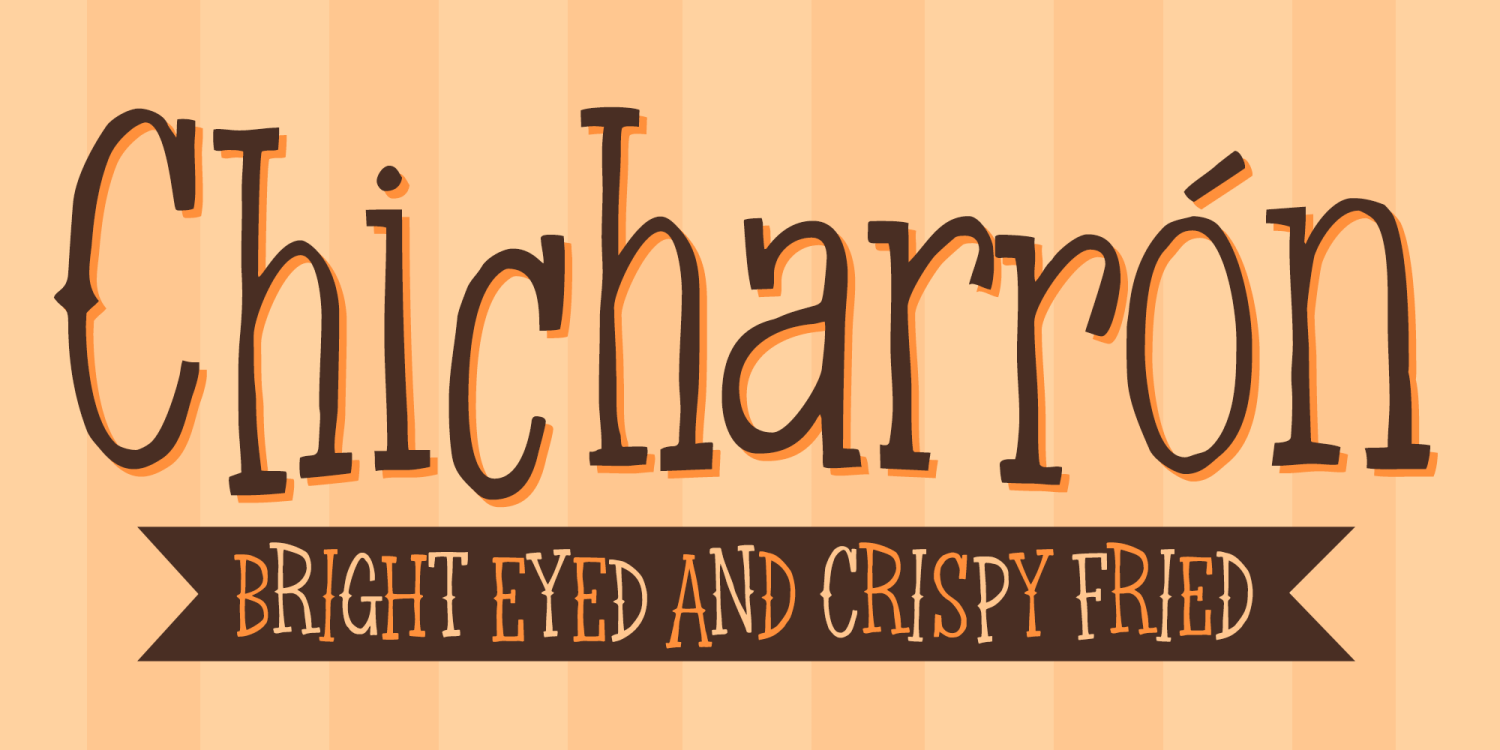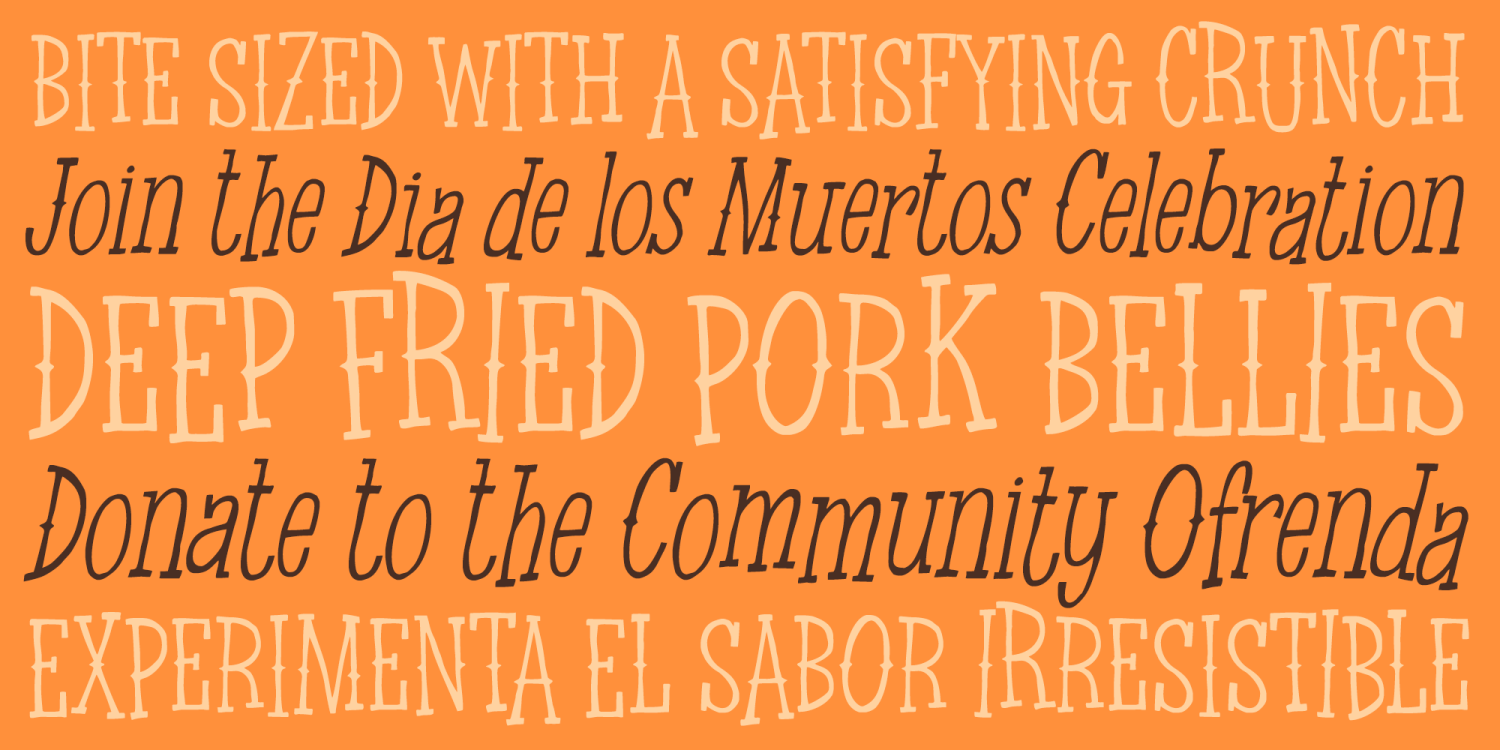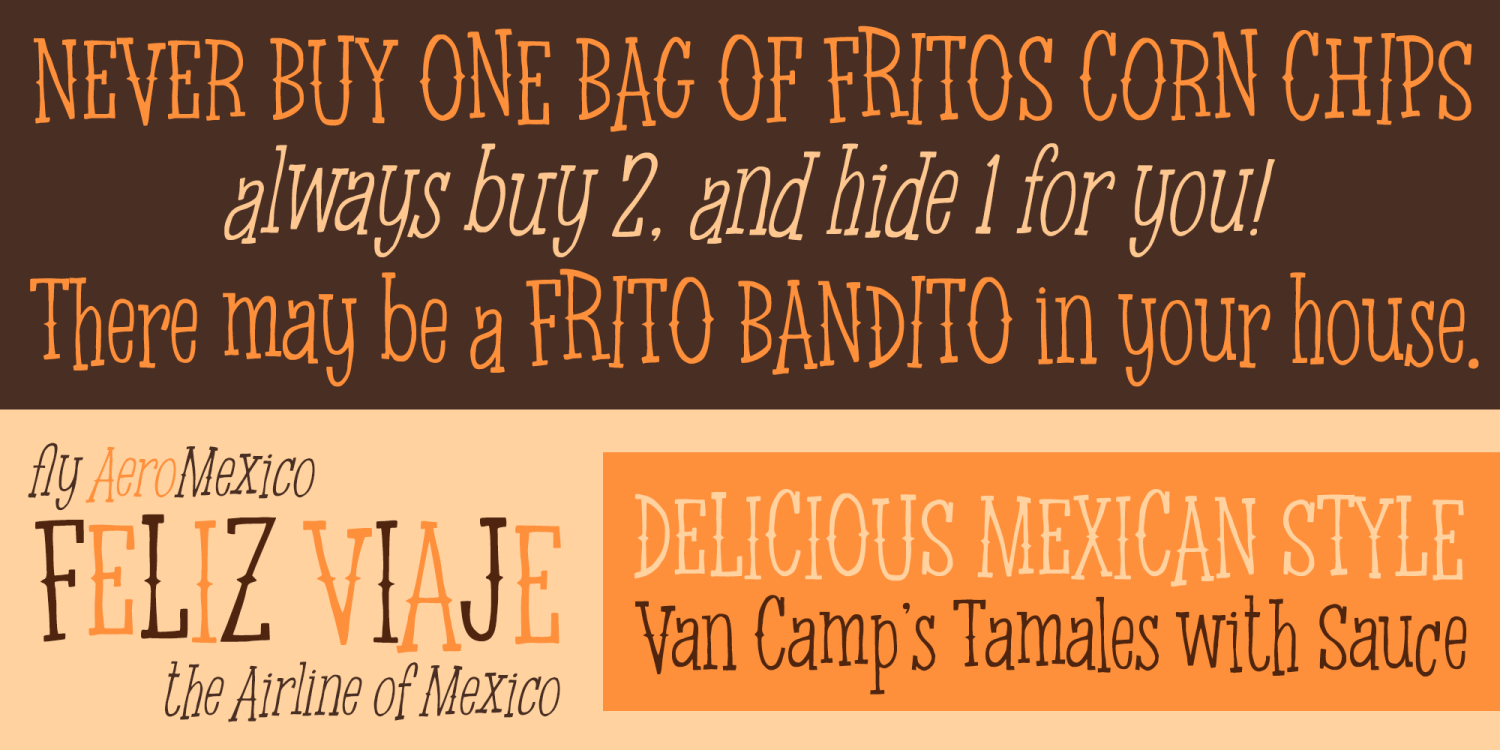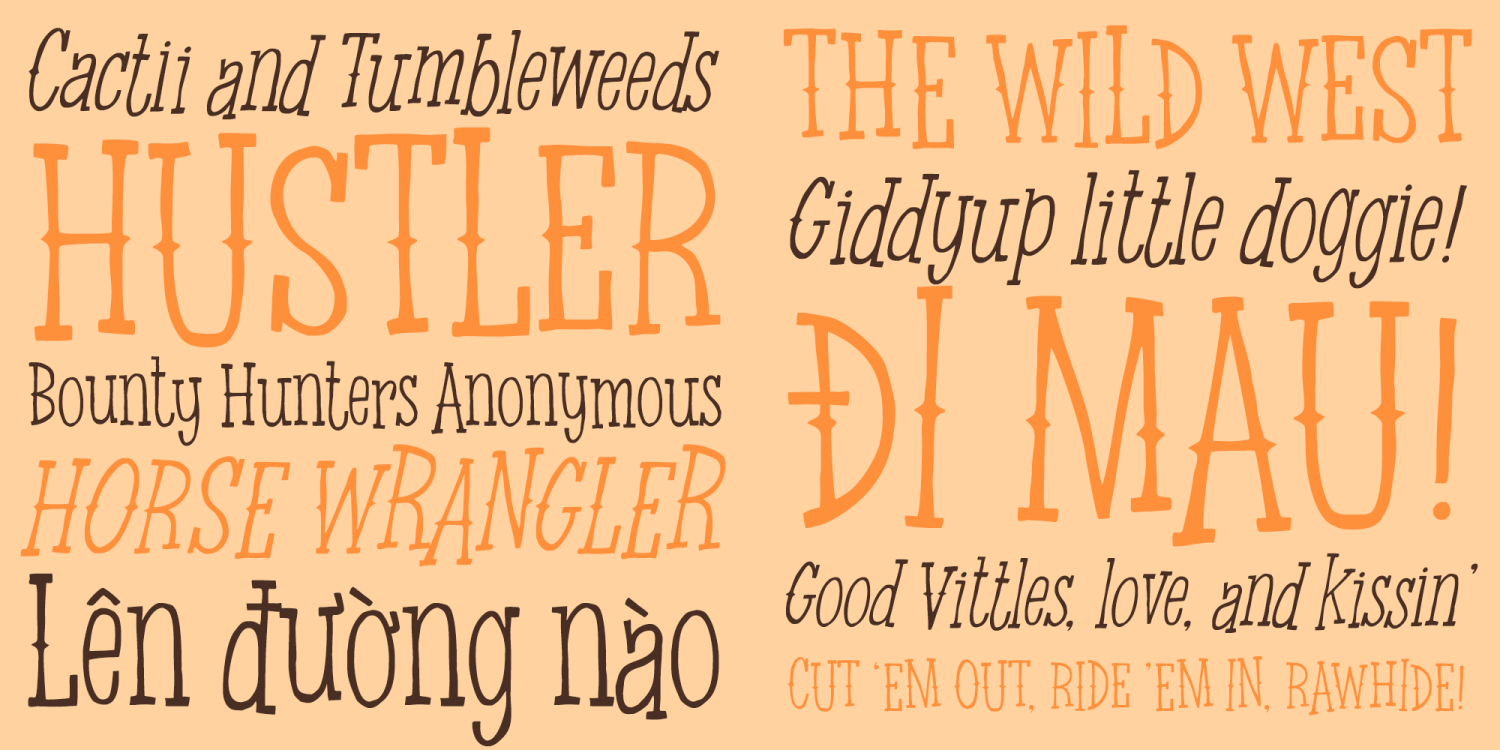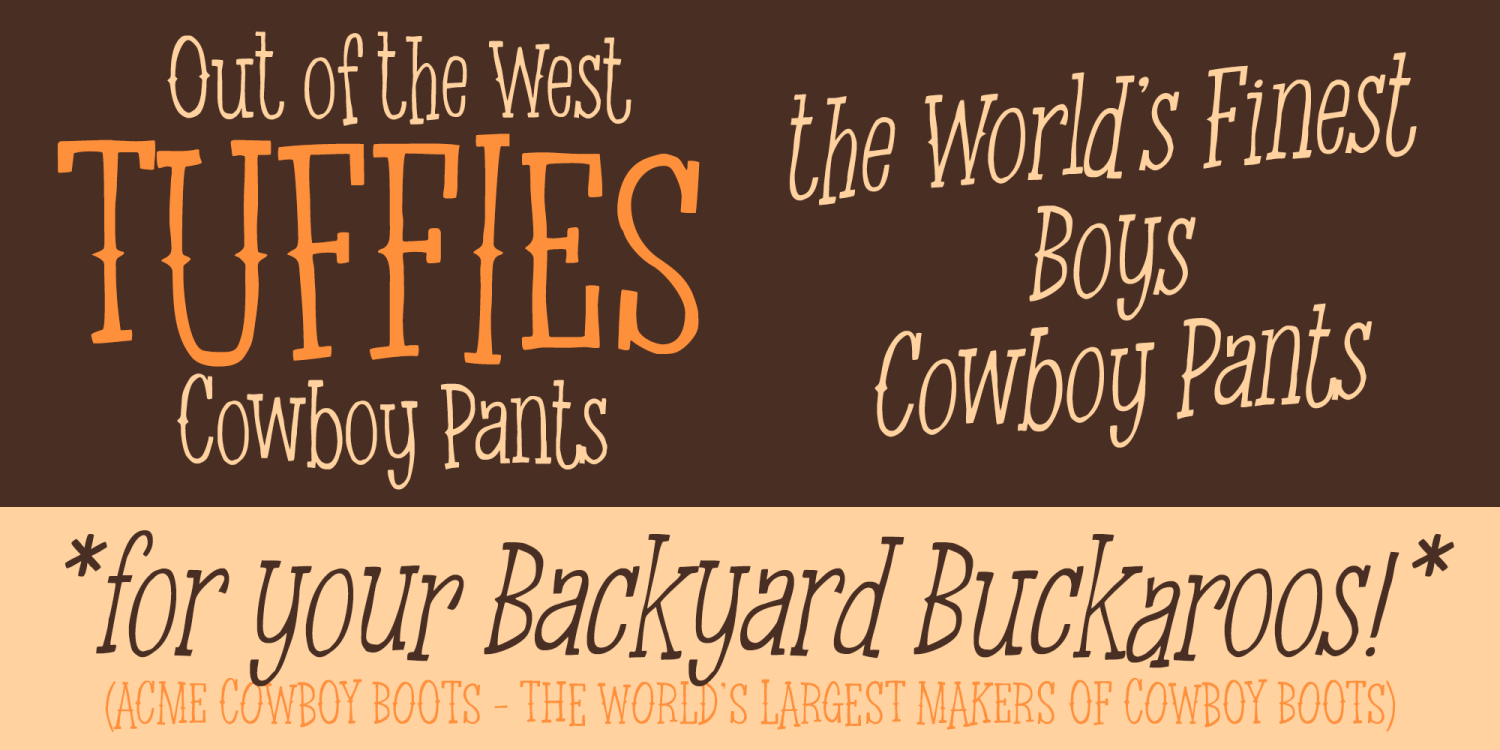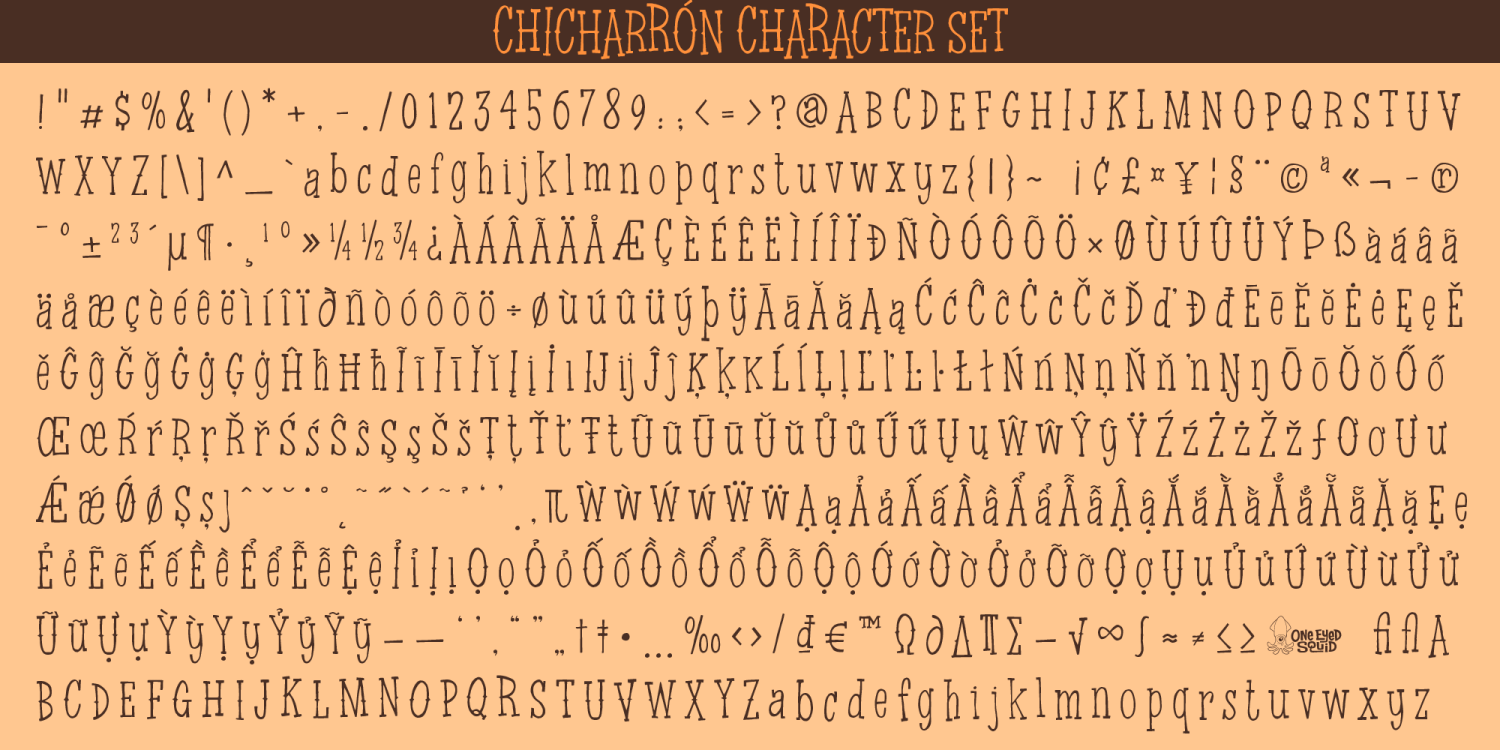
Chicharron
Chicharron is a savory, playful display font with bold flavor, quirky charm, and a lively hand-crafted personality. Its expressive letterforms bring warmth, fun, and a slightly offbeat energy to designs that want to feel memorable, flavorful, and full of character. Available in Regular and Oblique styles, Chicharron also includes randomized default and alternate behavior through OpenType ligatures for a more varied and dynamic typographic texture. Ideal for headlines, posters, branding, packaging, menus, restaurant graphics, social media, and other creative projects that call for a bold, unconventional display style. Includes extended Latin language support, including Vietnamese.
2 Styles Included
Regular
Oblique